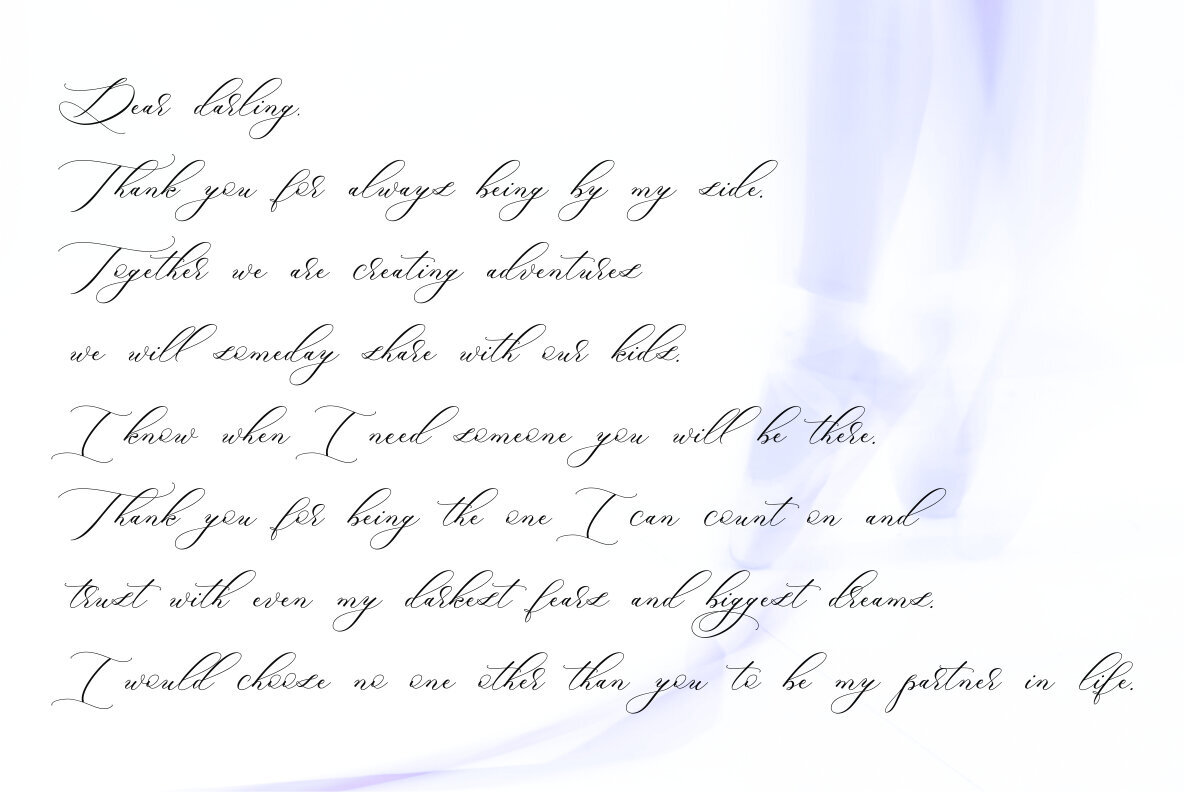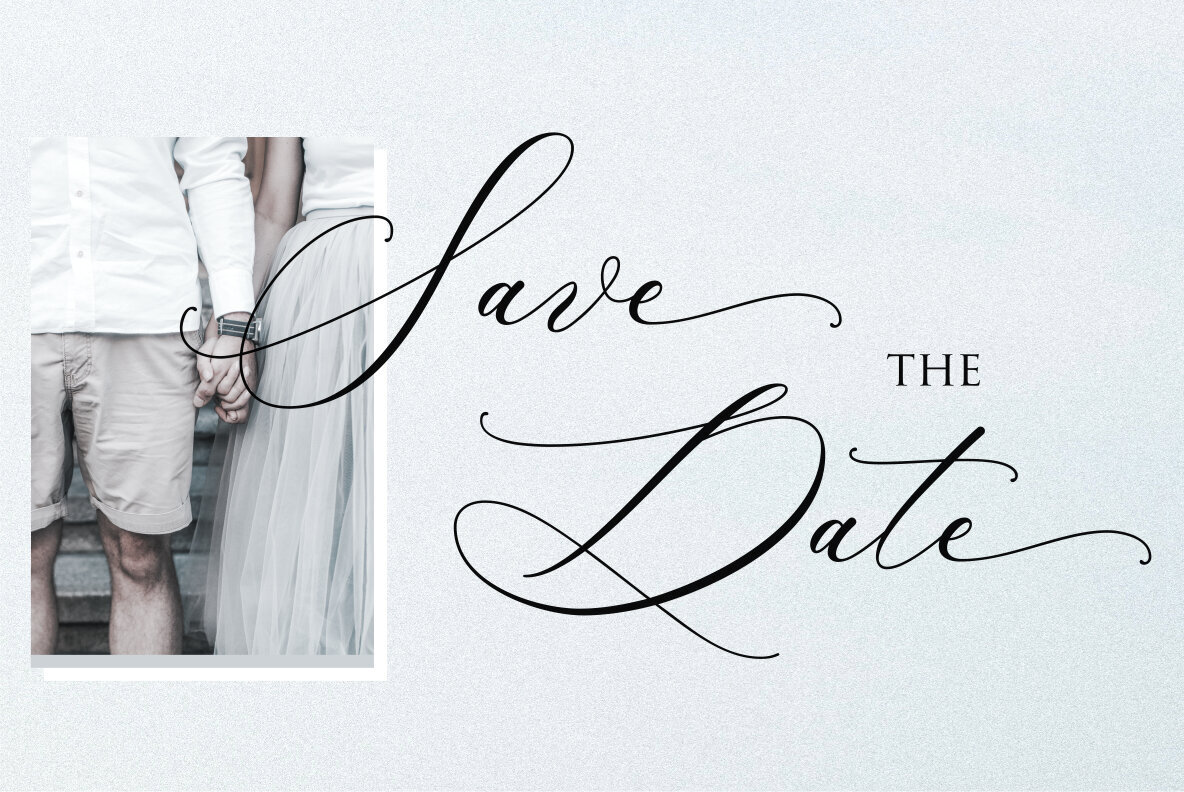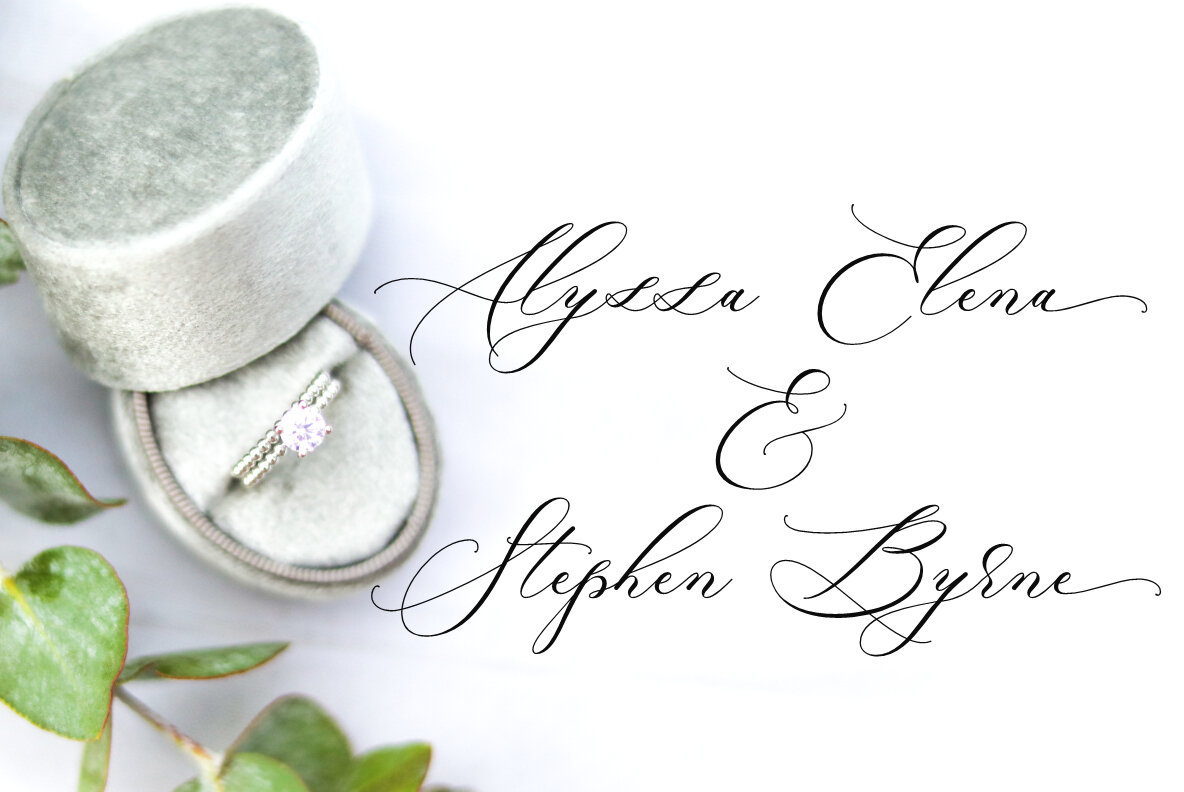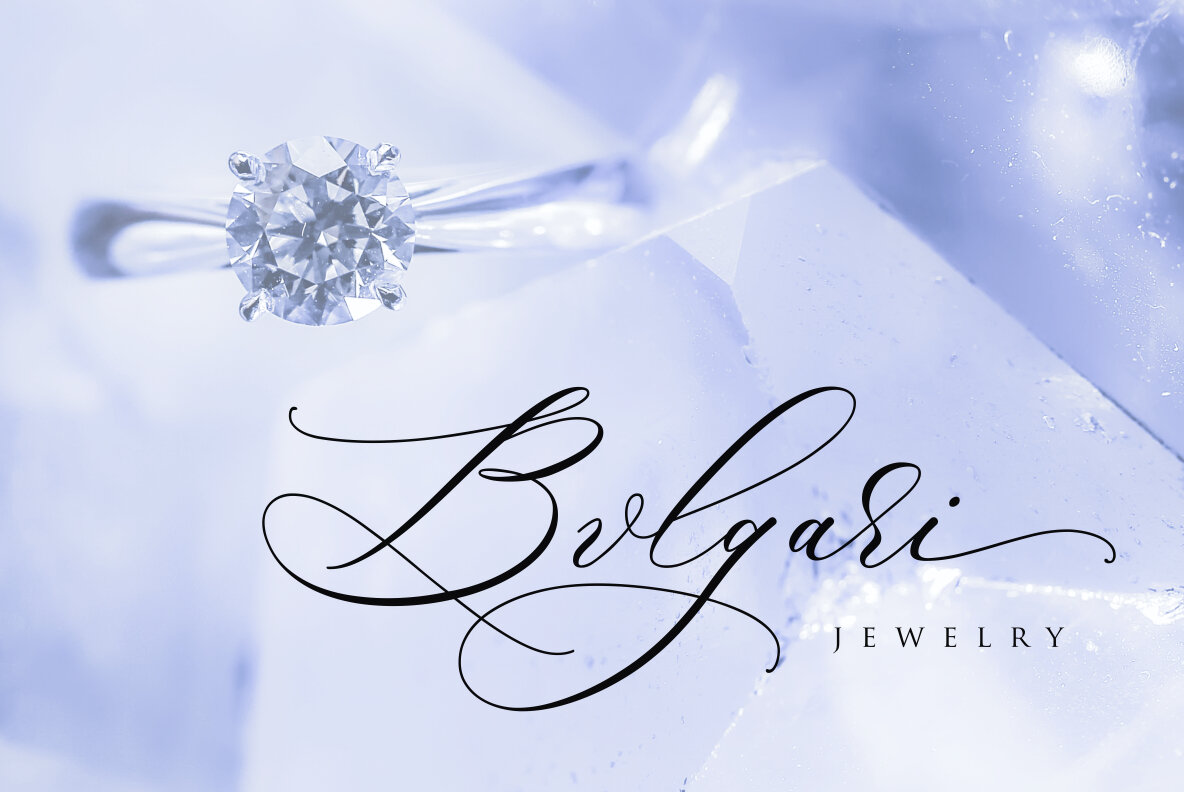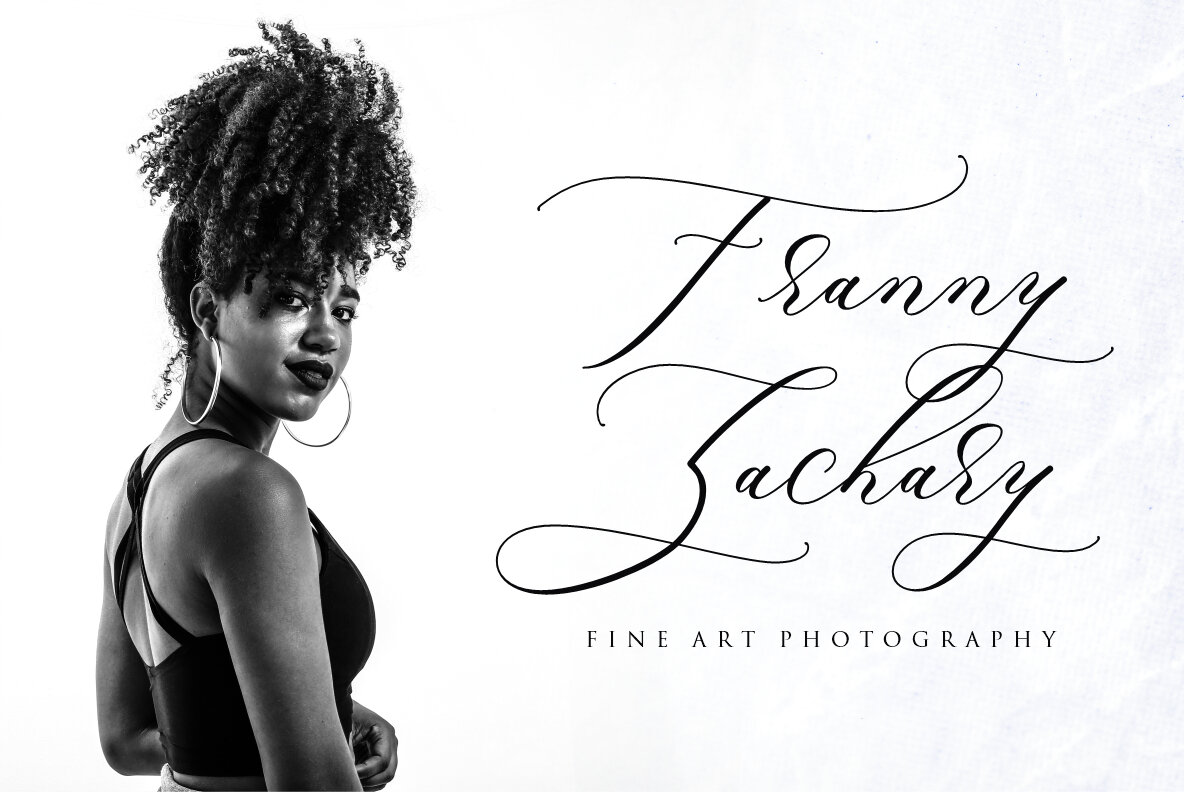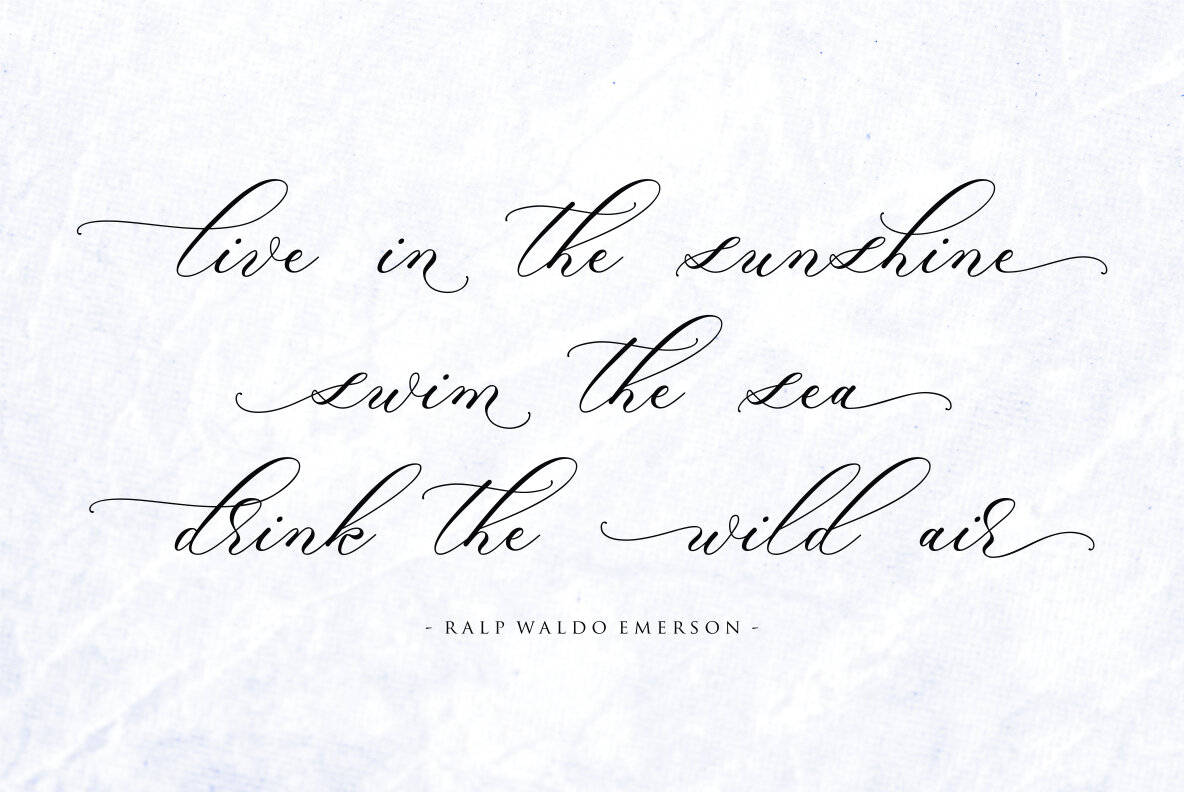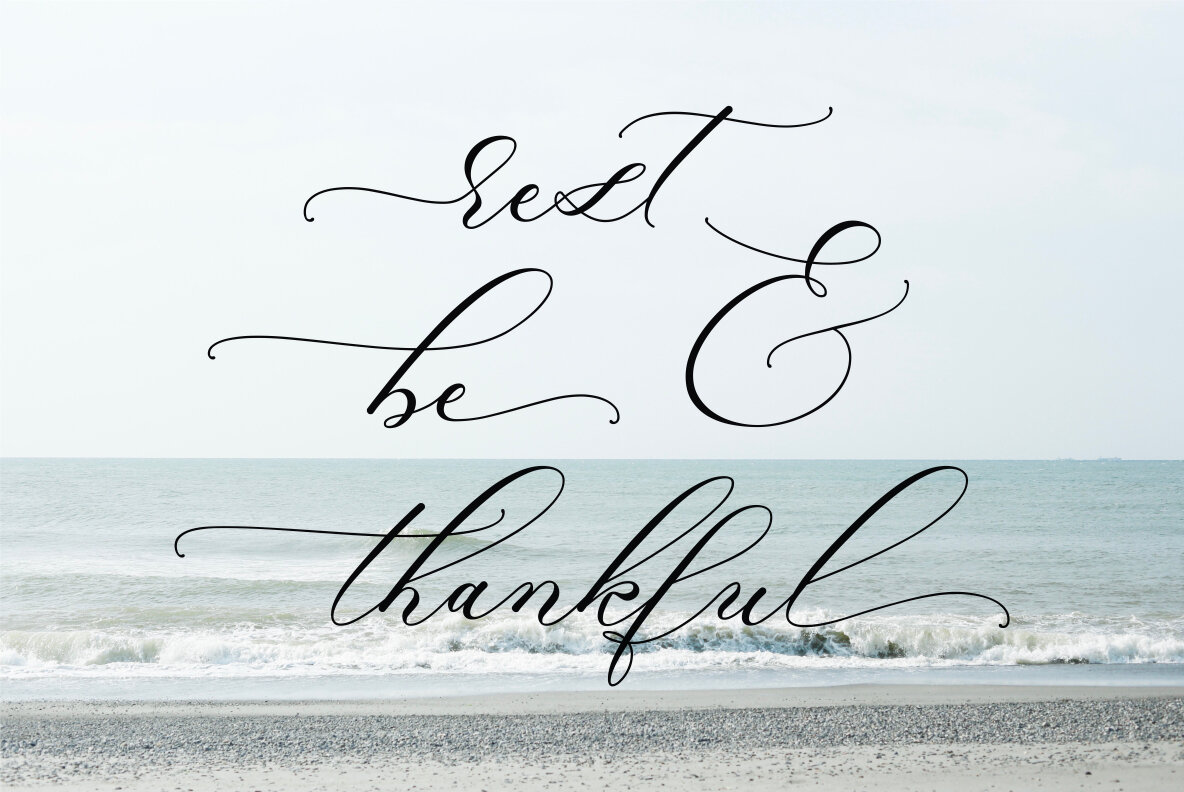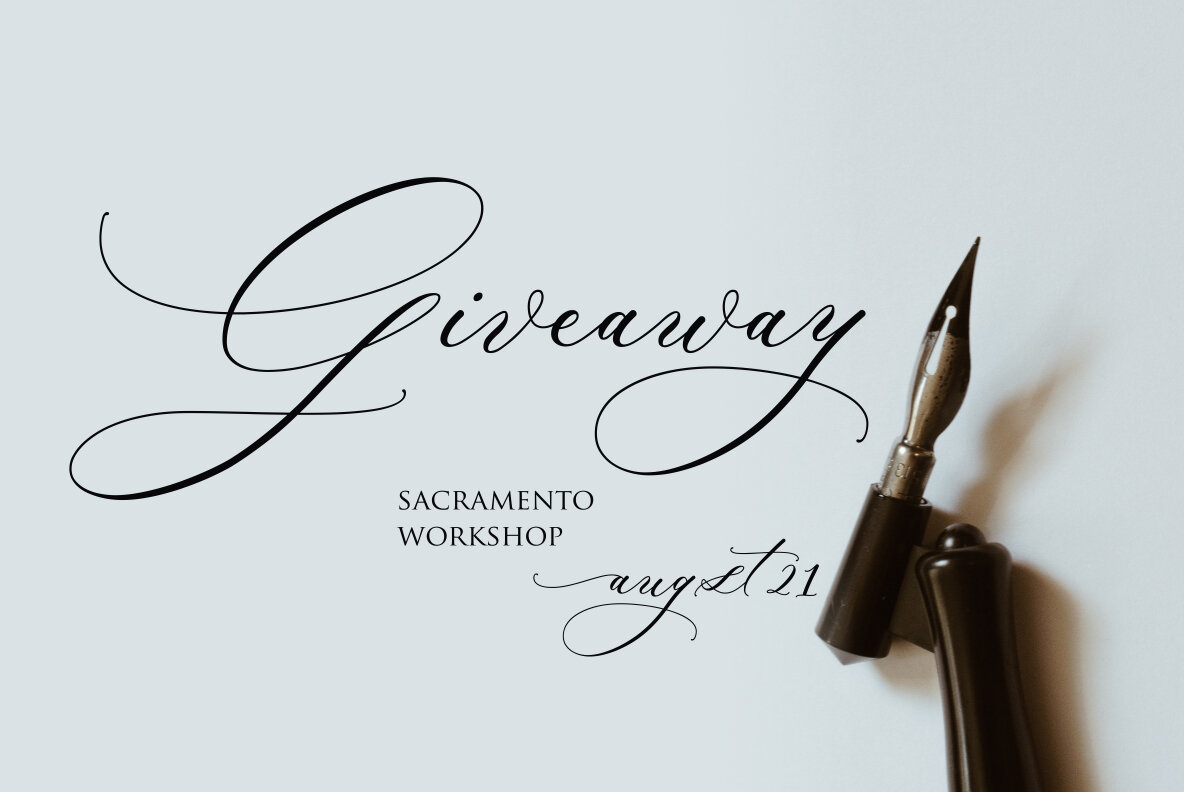
Raja Ampat Font
Raja Ampat
Anyone who wants to take their event invitation design to the next level will appreciate Raja Ampat modern wedding fonts! Raja Ampat will add a perfect touch of elegance and beauty to your typography project. Raja Ampat font features beautiful brush lettering combined with modern calligraphy that is great for a variety of design projects including invitations, logos, posters, branding materials, and pretty much anything else you want to create!
Raja Ampat features:
- A full set of upper & lowercase characters
- Numbers & punctuation
- Lowercase beginning swashes
- Lowercase ending swashes
- Some lowercase alternates